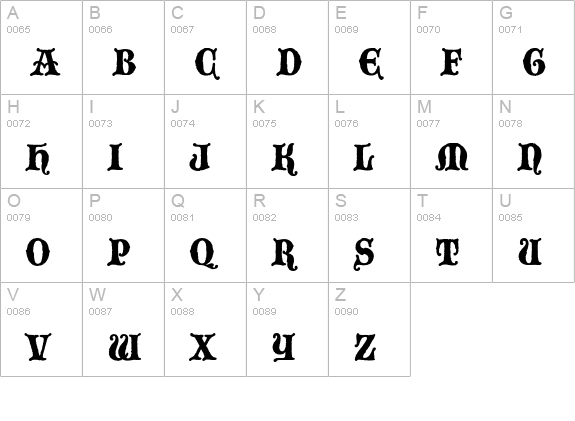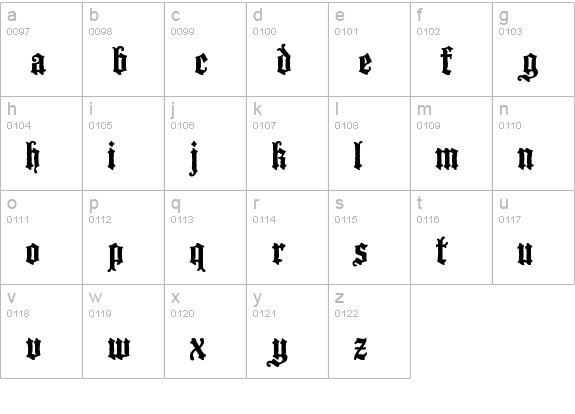
BlackwoodCastle font is a stunning and elegant typeface that exudes a sense of mystery and sophistication. With its intricate details and Gothic-inspired design, this font is perfect for creating eye-catching titles, logos, and invitations. The sharp angles and bold strokes of BlackwoodCastle give it a unique and timeless appeal that is sure to make your designs stand out. Best of all, BlackwoodCastle font is available for free download at FontsMarket.com. Whether you're a professional designer or a hobbyist looking to add a touch of elegance to your projects, BlackwoodCastle font is the perfect choice. Download it today and unleash your creativity with this exquisite typeface.